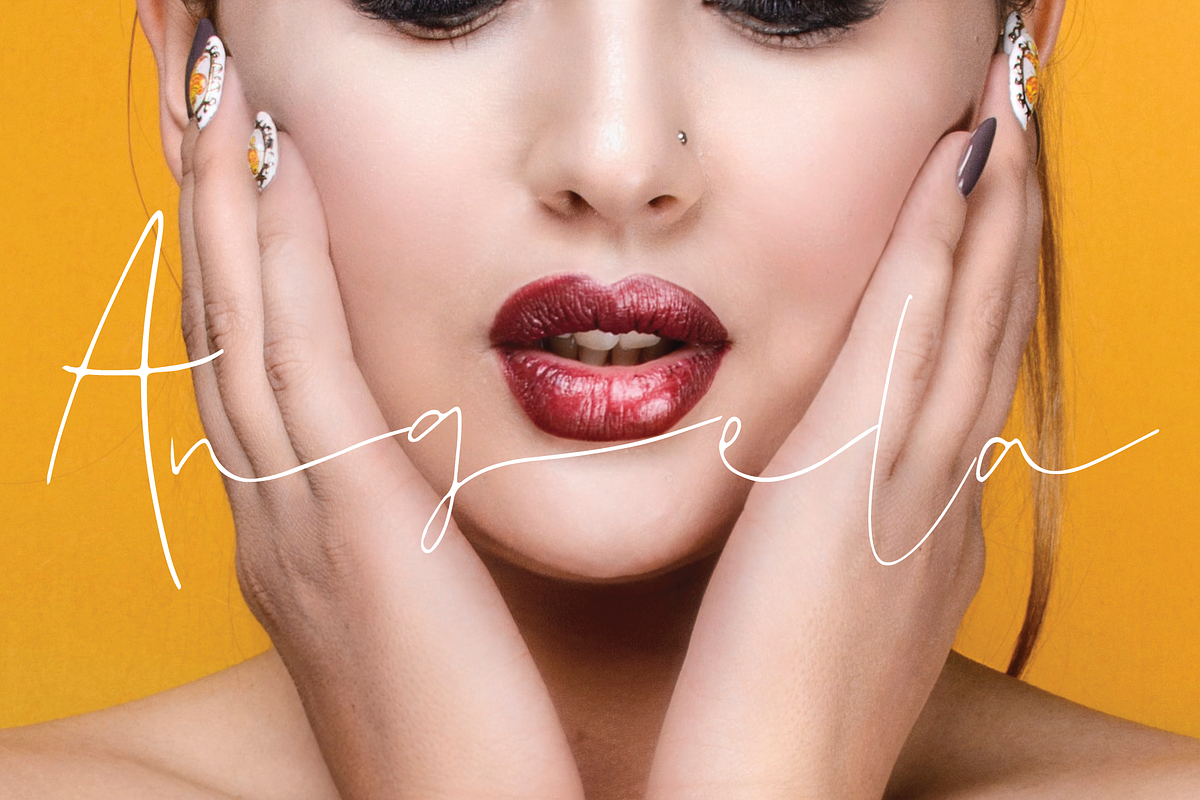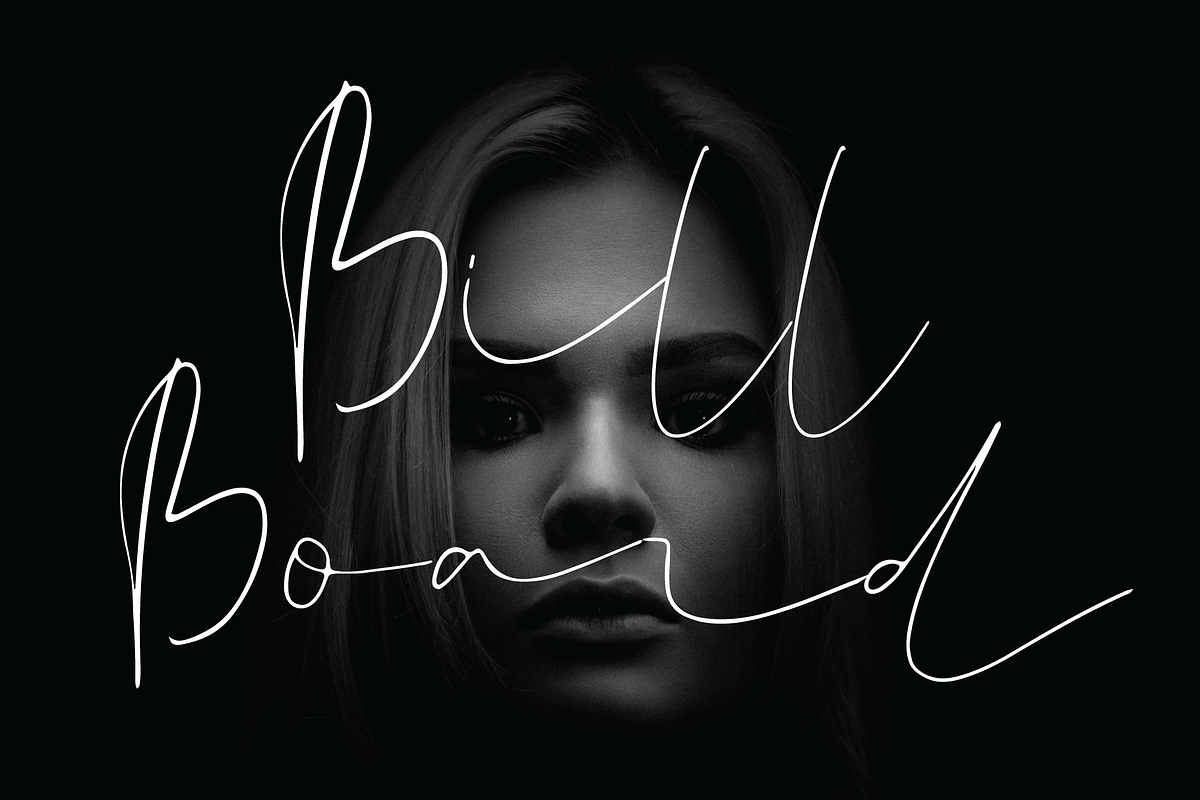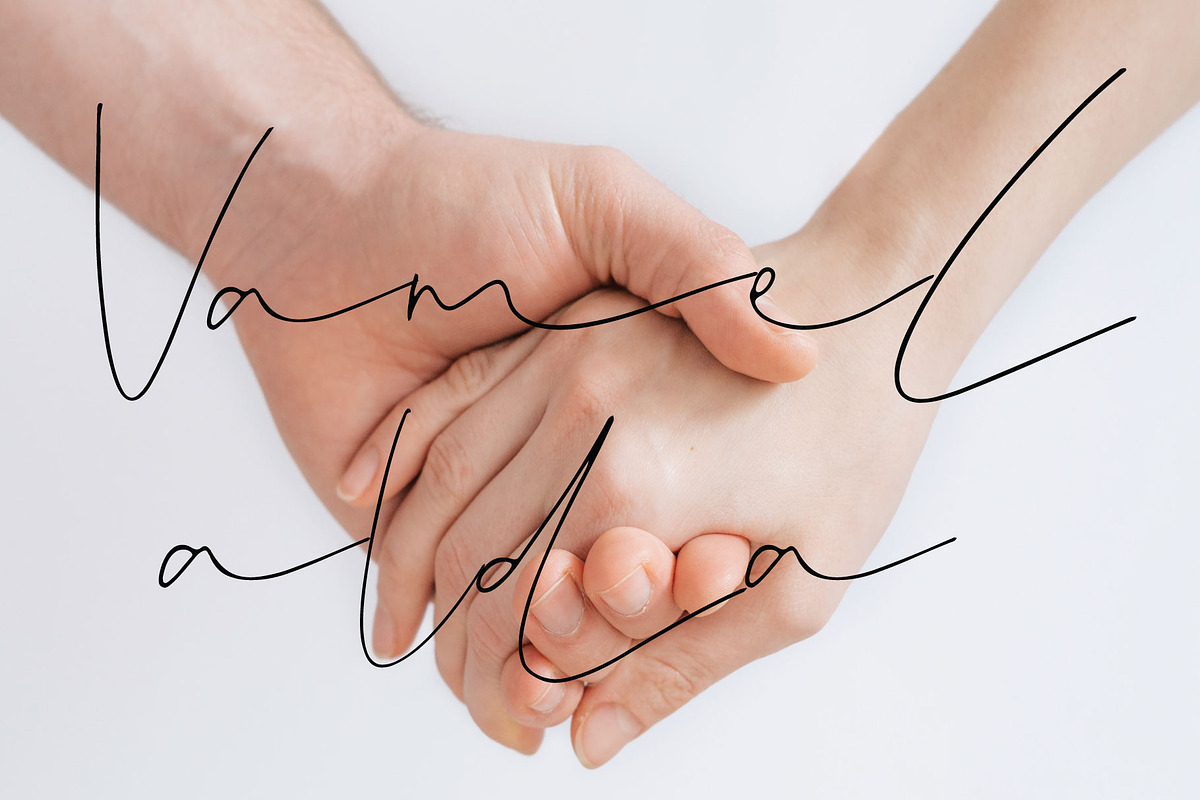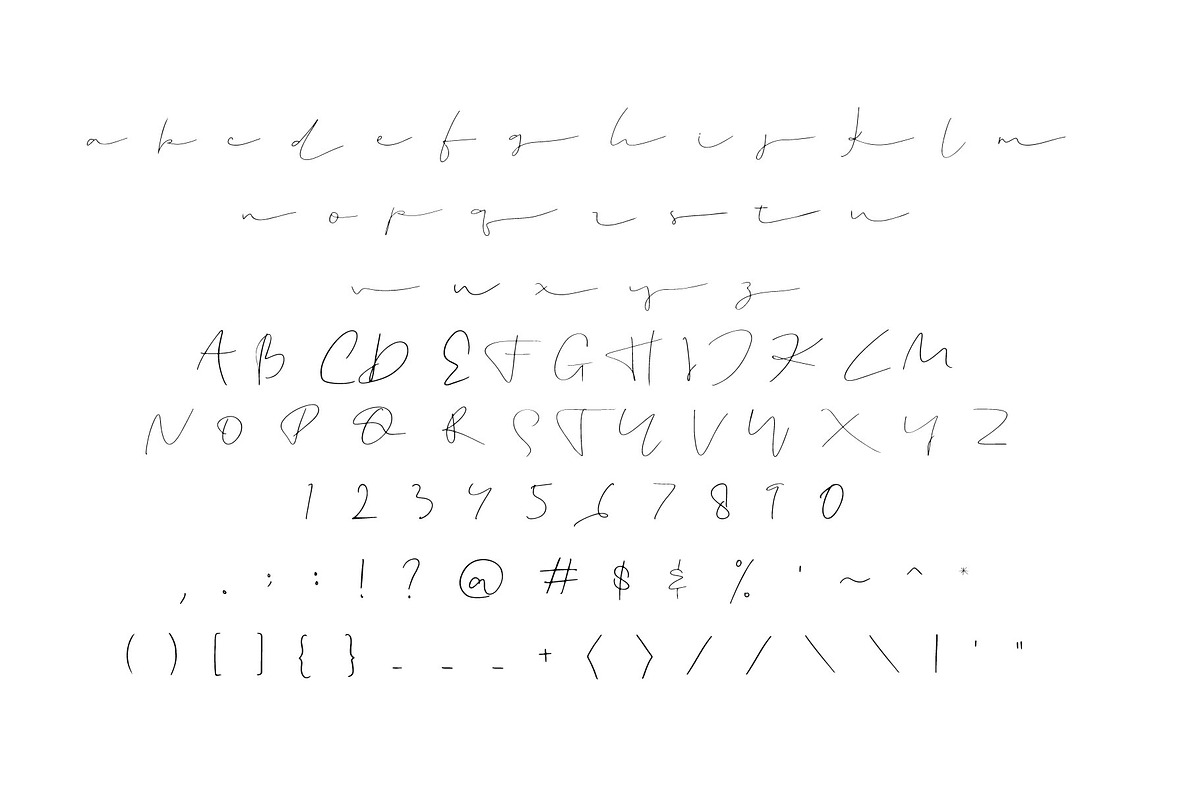
billboard font
Billboard Font by Goodigital13 is a font selected for branding, posters, packaging, typography.
Why billboard font is worth a look
billboard font by Mariyana fits naturally into Branding, posters, packaging, typography.